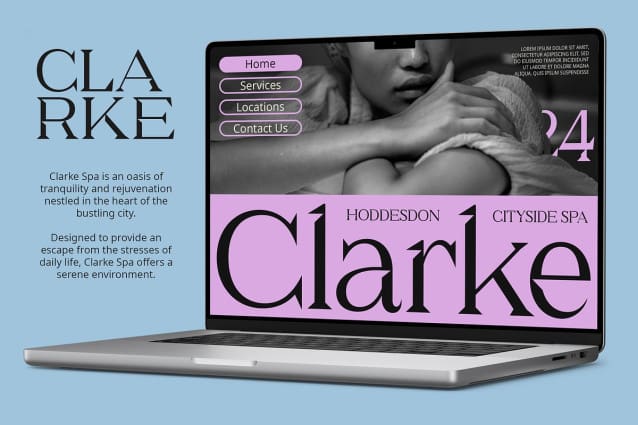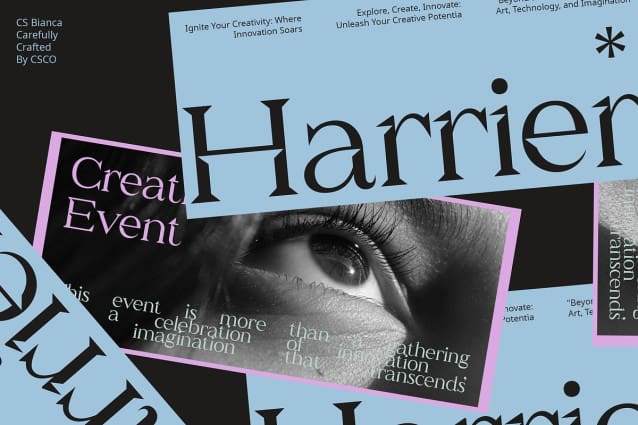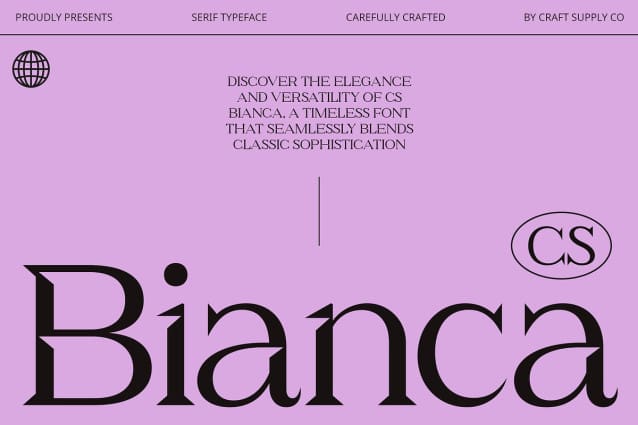
CS Bianca Font
CS Bianca Font is a modern serif typeface that seamlessly blends classic and modern elements to create a timeless and elegant impression. This font is crafted for versatility, suitable for a wide range of design applications where elegance and sophistication are key.
Ideal for Corporate and Graphic Designs Perfect for corporate projects requiring a professional and luxurious appearance, as well as graphic designs that prioritize elegance and precision, CS Bianca enhances every project with its refined serif design. Its balanced proportions and clean lines ensure readability and visual appeal across various mediums.
Versatile and Sophisticated CS Bianca offers versatility and sophistication, making it a reliable choice for designers seeking a serif typeface that combines classic charm with contemporary refinement. Whether used in branding, editorial layouts, or digital applications, this font elevates the visual impact of your designs with timeless elegance